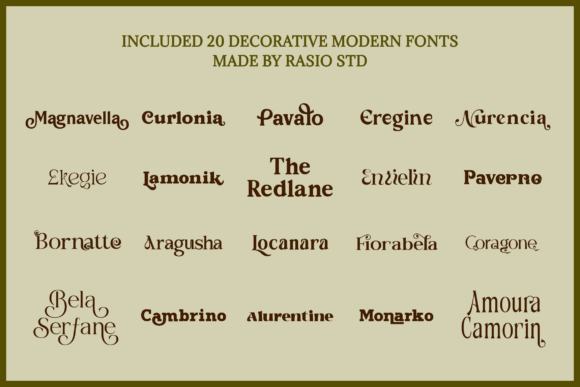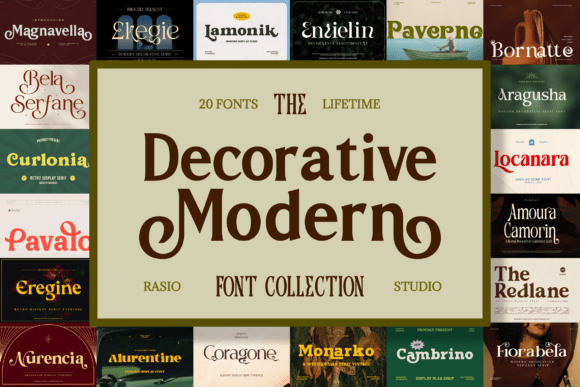
Elevate Your Designs with the Decorative Modern Font Bundle
Are you tired of using the same old fonts in your designs? Do you want to add a touch of elegance and sophistication to your typography? Look no further than the Decorative Modern Font Bundle. This curated collection of 20 unique decorative display fonts is perfect for designers who want to take their designs to the next level.
What is the Decorative Modern Font Bundle?
The Decorative Modern Font Bundle is a collection of 20 decorative display fonts that blend modern elegance with expressive and ornamental details. Each typeface is carefully crafted to stand out, combining stylized letterforms, unique curves, and decorative elements that create a strong visual identity.
Whether you’re a graphic designer, a crafty DIY enthusiast, or a digital artist, this font bundle is perfect for anyone who wants to add a distinctive artistic touch to their designs. With a balance between modern structure and classic ornamentation, this collection brings versatility while maintaining a cohesive and refined look across different design applications.
Key Features of the Decorative Modern Font Bundle
- 20 Unique Fonts: The bundle includes 20 decorative display fonts, each with its own unique character and style.
- Modern Elegance: The fonts blend modern elegance with expressive and ornamental details, making them perfect for a wide range of design applications.
- Stylized Letterforms: Each typeface features stylized letterforms, unique curves, and decorative elements that create a strong visual identity.
- Versatility: The fonts are versatile and can be used for a variety of design projects, from branding and advertising to packaging and digital graphics.
- Cohesive Look: Despite the unique style of each font, the collection maintains a cohesive and refined look across different design applications.
Who is the Decorative Modern Font Bundle for?
The Decorative Modern Font Bundle is perfect for:
- Graphic Designers: If you’re a graphic designer looking to elevate your typography and add a touch of elegance to your designs, this font bundle is for you.
- Digital Artists: If you’re a digital artist looking for unique and expressive fonts to use in your art, this bundle is perfect for you.
- Crafty DIY Enthusiasts: If you’re a crafty DIY enthusiast who loves to create handmade cards, gift tags, and other paper crafts, this font bundle is a great addition to your design toolkit.
- Small Business Owners: If you’re a small business owner looking to create a strong brand identity, this font bundle can help you achieve that.
How to Use the Decorative Modern Font Bundle
The Decorative Modern Font Bundle can be used in a variety of design applications, including:
- Branding and Advertising: Use the fonts to create eye-catching logos, advertisements, and marketing materials.
- Packaging Design: Use the fonts to create beautiful and eye-catching packaging designs.
- Digital Graphics: Use the fonts to create stunning digital graphics, such as social media graphics, blog headers, and more.
- Paper Crafts: Use the fonts to create handmade cards, gift tags, and other paper crafts.
| Font Name | Decorative Modern Font |
| Author | product.rasiostudio |
The Decorative Modern Font Bundle is a must-have for designers and crafters who want to add a touch of elegance and sophistication to their designs. With its 20 unique decorative display fonts, this bundle offers a wide range of creative possibilities. Whether you’re a graphic designer, a digital artist, or a crafty DIY enthusiast, this font bundle is perfect for anyone who wants to take their designs to the next level.